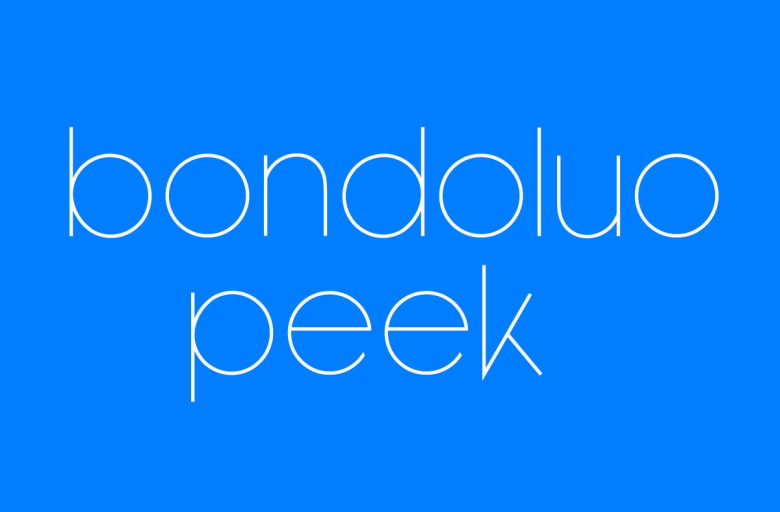
Bondoluo Peek Font
Bondoluo Peek is a high quality Sans Serif font that is designed by Álvaro Thomáz and is available for free download and personal use. The free version provides all uppercase and lowercase letters and a few special characters too.
Bondoluo Peek Sans Serif Font